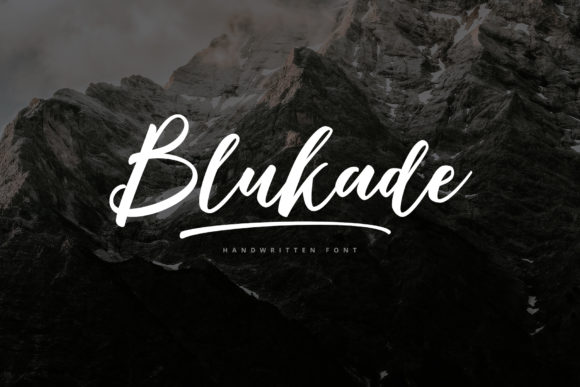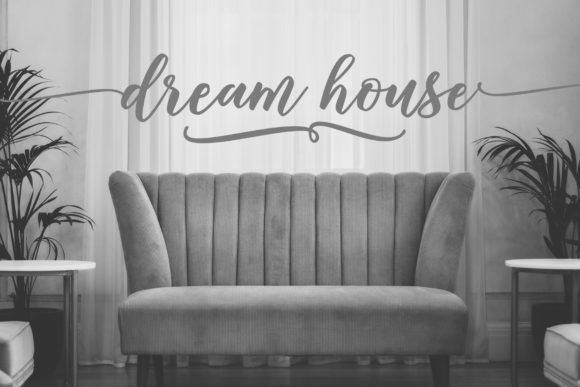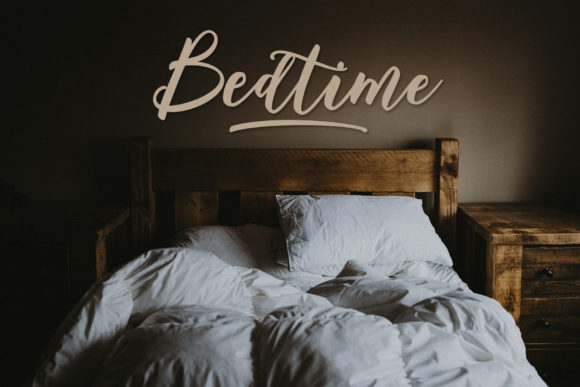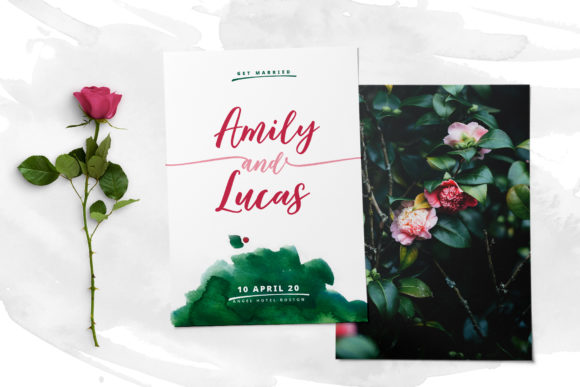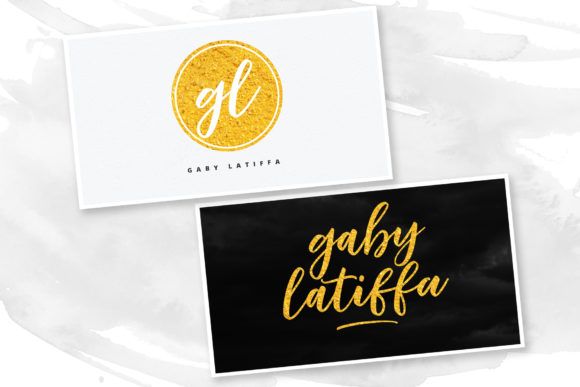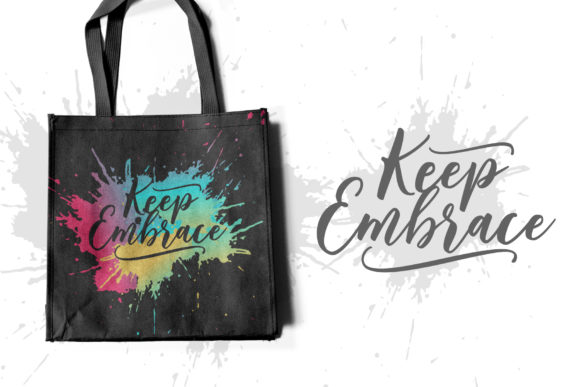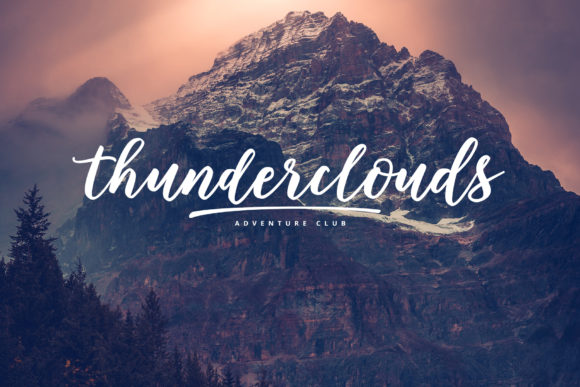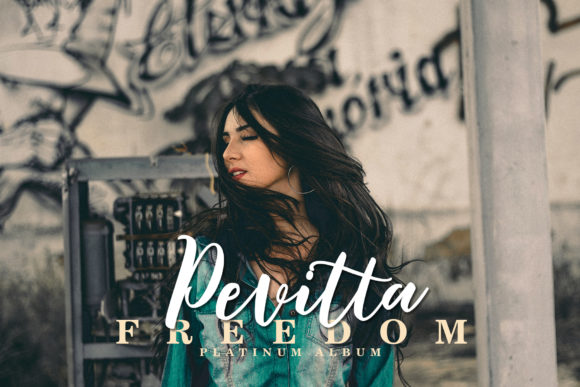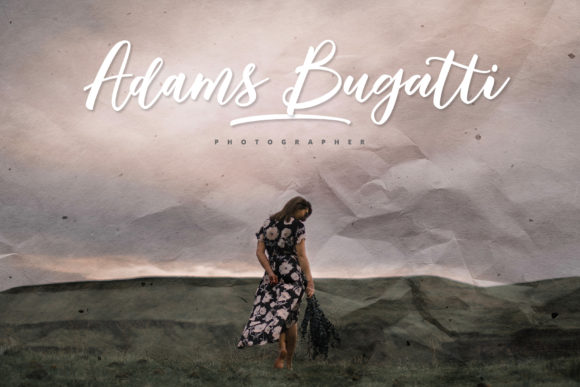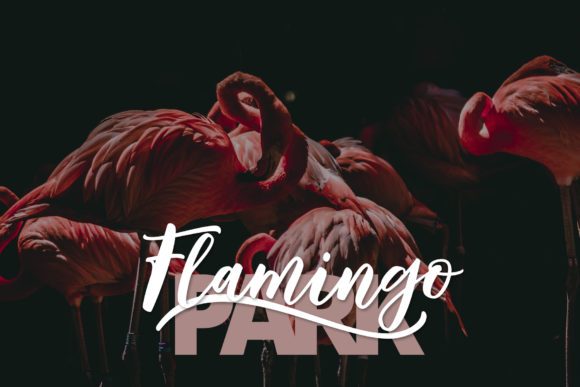
Blukade Font
About Blukade Font
Blukade is a handwritten script with an elegant style. Fall in love with its authentic feel and use it to create gorgeous wedding invitations, beautiful stationary art, eye-catching social media posts, and cute greeting cards.